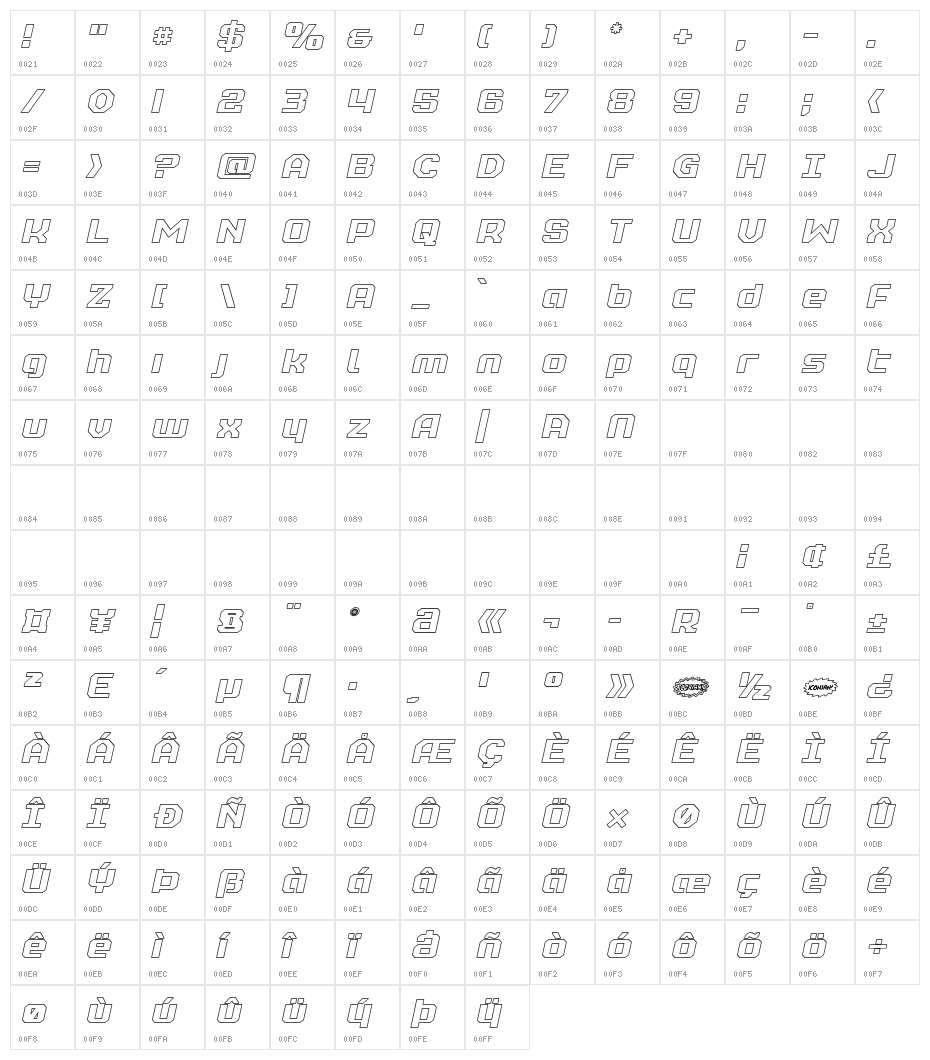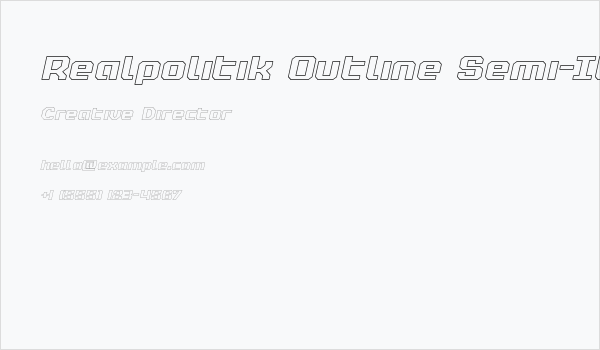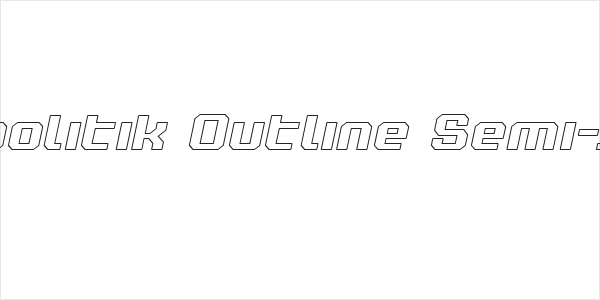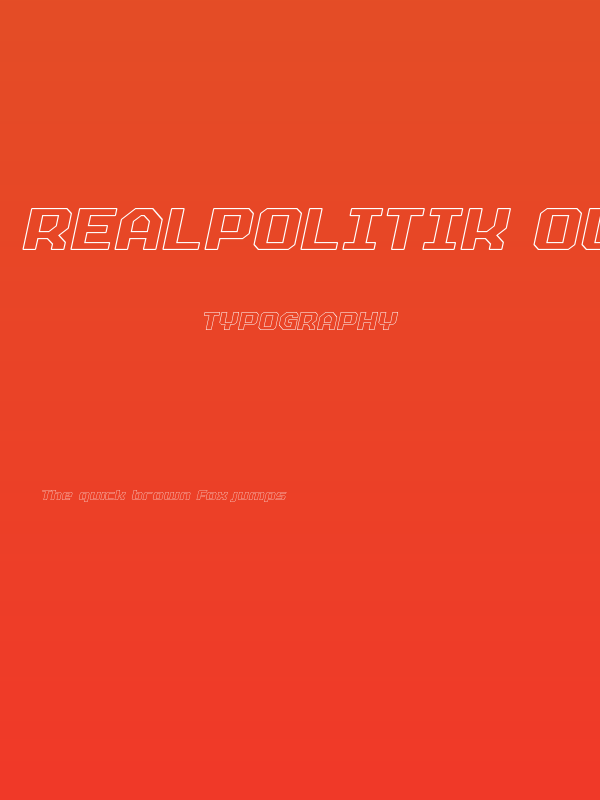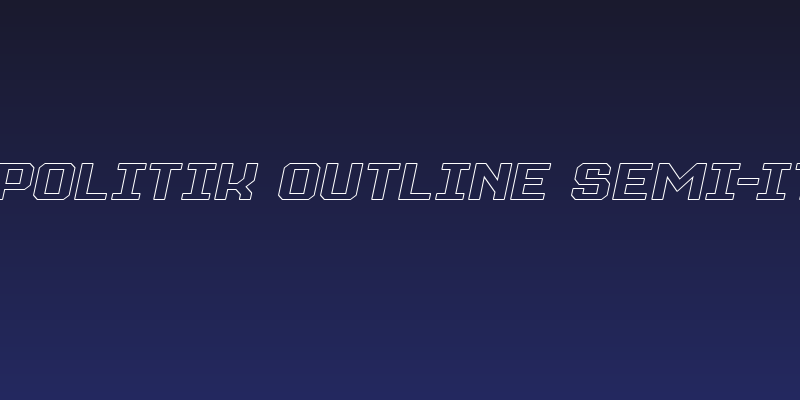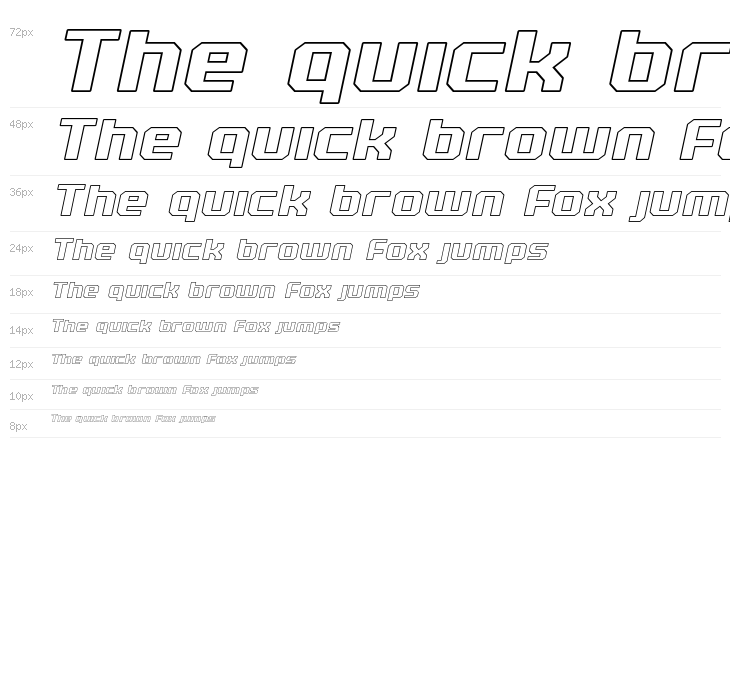
Realpolitik Outline Semi-Italic Font
Realpolitik Outline Semi-Italic Description
This font features an outline style with a semi-italic slant, giving it a dynamic and modern appearance. The uppercase and lowercase letters maintain a consistent geometric structure, with sharp angles and clean lines. The numerals and special characters follow the same design principles, ensuring uniformity across all glyphs. The outline effect adds a unique dimension, making it suitable for eye-catching designs. The semi-italic angle provides a sense of movement and fluidity, enhancing its visual appeal.